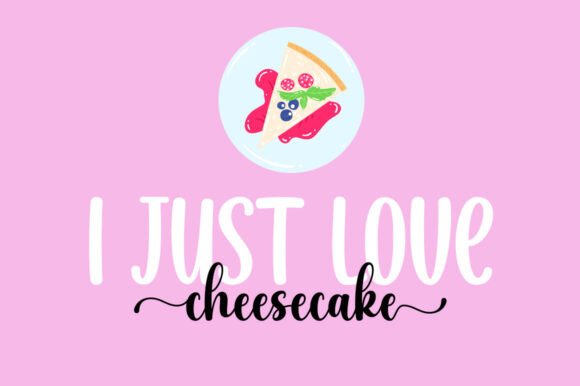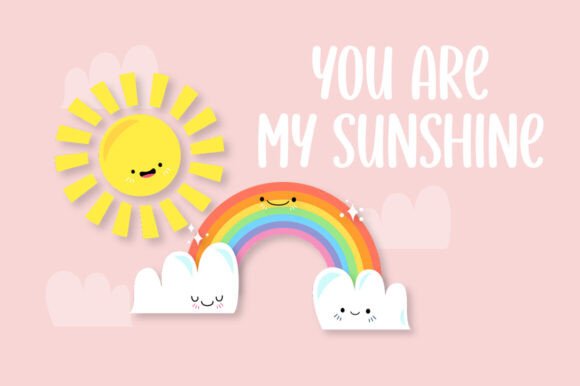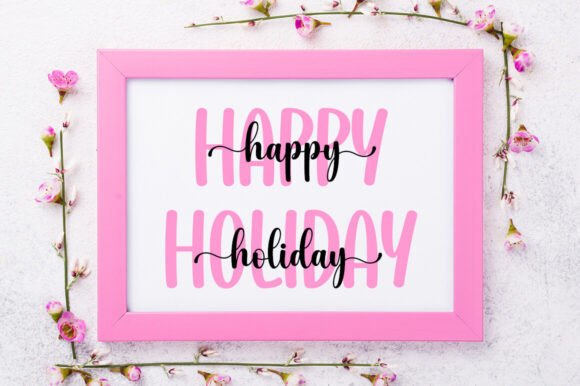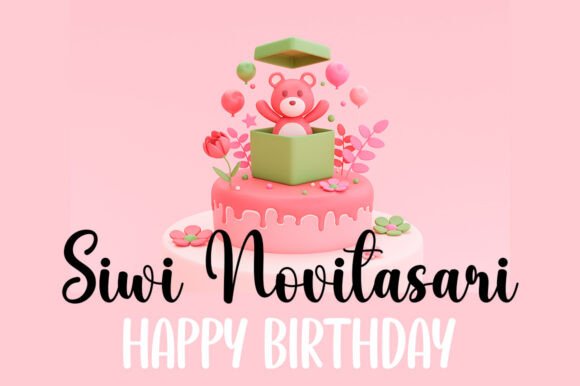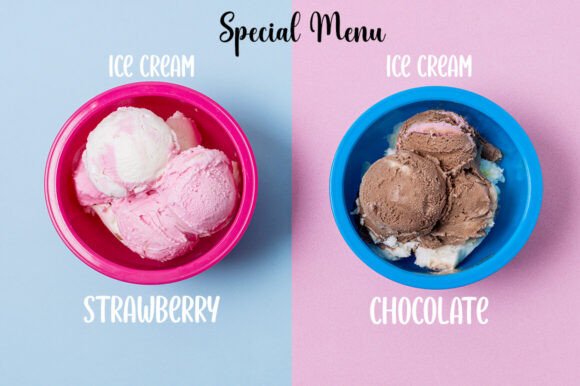
The Perfect Touch of Romance: Introducing Cheesecake Homemade Duo Font
Have you ever stared at a blank canvas, feeling stuck and uninspired? It’s a familiar feeling for many creatives. But then, something sparks – a color palette, a typography choice, or a font that sets the tone for your project. For me, it was the moment I discovered Cheesecake Homemade Duo Font. This stylish and delicate duo font (sans serif and script) instantly captured my attention, and I knew I had to learn more.
Cheesecake Homemade Duo Font is a versatile and romantic addition to any design. With its PUA encoding, accessing all the glyphs and ligatures is a breeze, making it a valuable asset for designers. Whether you’re crafting greeting cards, creating headlines, or designing wedding invitations, this font will add a touch of elegance and sophistication to your work. By incorporating Cheesecake Homemade Duo Font into your projects, you’ll be able to convey your message with a subtle yet impactful flair.
Cheesecake Homemade Duo Font Key Features
- Font Family: Duo Font, with two font styles: Duo Regular and Duo Font Bold
- Unique Characteristics: Duo Font features a unique, hand-drawn design with a mix of serif and script elements, making it ideal for creative and artistic applications
Designer Review: Cheesecake Homemade Duo Font
Overall, I found the Cheesecake Homemade Duo Font to be an interesting and unique addition to any project. Here are some of its strengths:
- ✨ The font’s pairing of a cursive and a sans-serif font creates a visually appealing contrast that can add a touch of warmth and personality to a design.
- ✨ The cursive portion of the font has a smooth, flowing quality that makes it suitable for headings or titles.
- ✨ The sans-serif portion of the font is clean and modern, making it a good choice for body text or captions.
- ⚠️ The font may be too cursive-heavy for some designs, potentially making it difficult to read at smaller sizes.
- ⚠️ The font’s unique style may not be to everyone’s taste, and it may not be suitable for formal or professional projects.
In terms of overall impression, I would say that the Cheesecake Homemade Duo Font is a solid choice for designers looking to add some personality and whimsy to their projects. While it may not be suitable for every design, it can be a great option for projects that require a touch of warmth and playfulness.
The Cheesecake Homemade Duo font is a playful and elegant font that works well for baking-themed projects, food blogs, and lifestyle brands.
Use the font in combination with other baking-themed elements, such as images of cheesecakes or baking utensils, to create a cohesive and visually appealing design.
Experiment with different font sizes and colors to create a unique and eye-catching design.